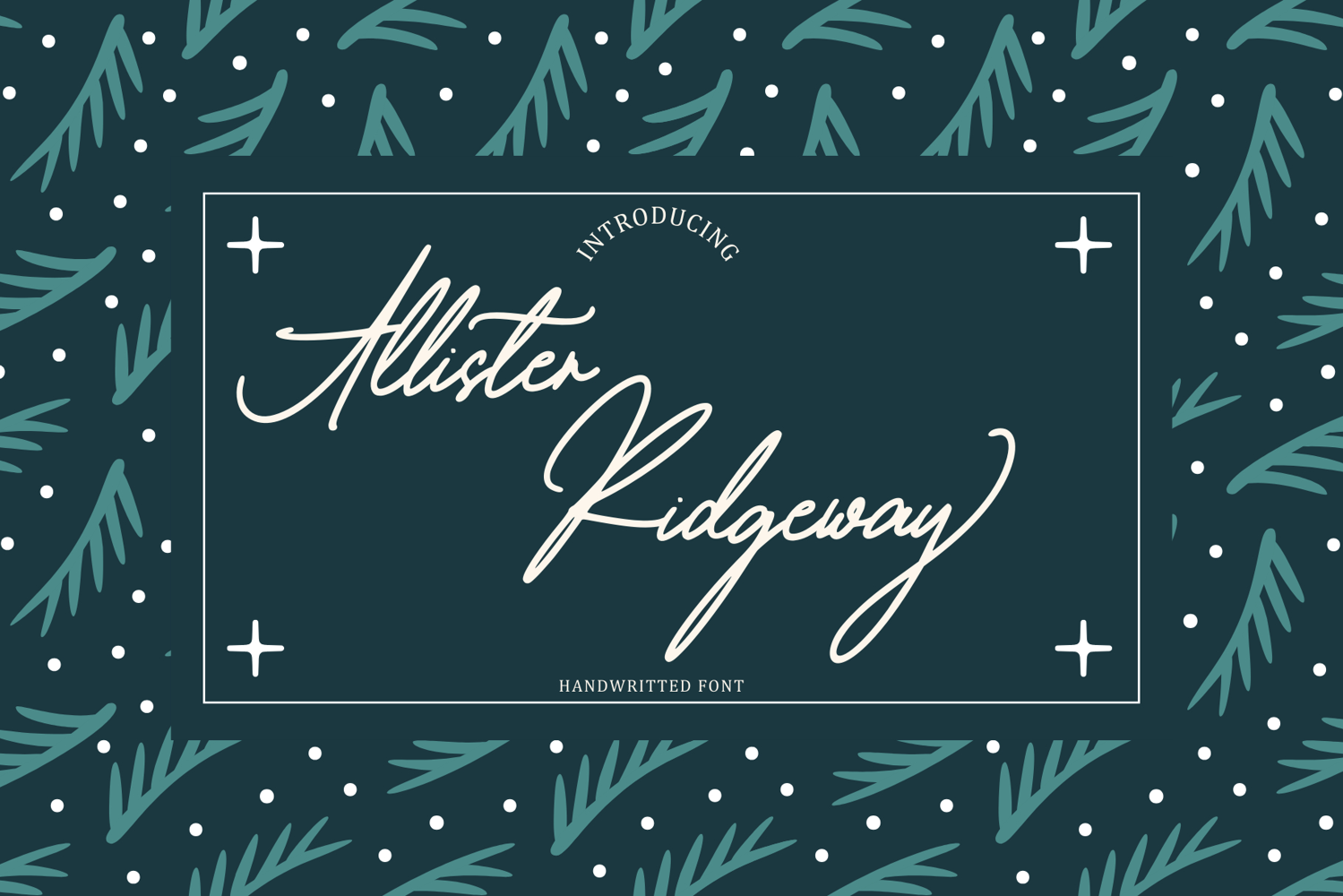
Allister Ridgeway
Allister Ridgeway is a sleek, monoline handwritten font that combines simplicity with sophisticated elegance. With its smooth, continuous strokes and subtle curves, this font evokes a sense of effortless flow, perfect for creating modern designs with a individual touch. Ideal for everything from branding and logos to invitations and digital media, Allister Ridgeway adds a timeless, refined character to any project. Its clean lines and understated charm make it a versatile choice for a wide range of creative endeavors.